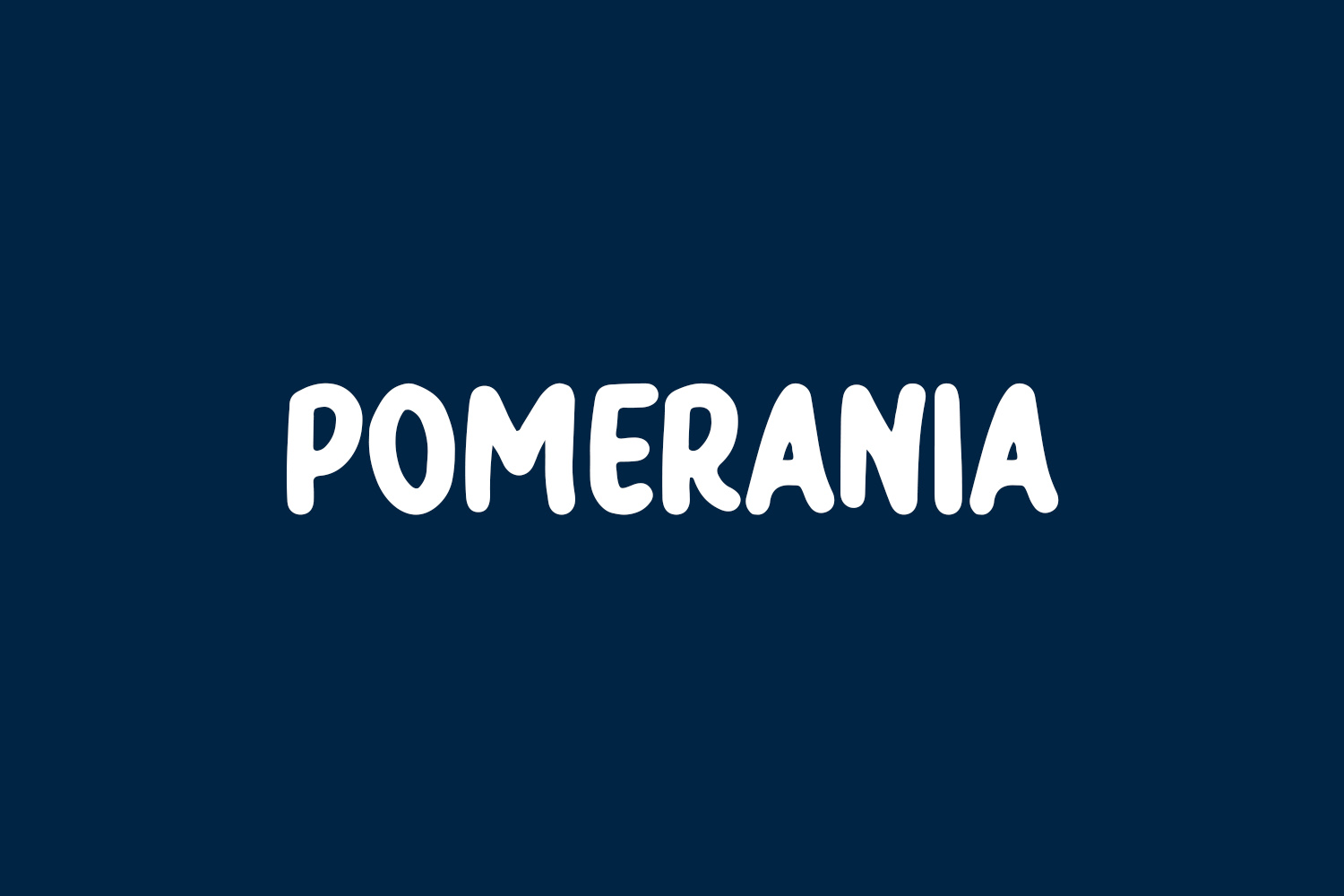
Pomerania Free Font is a playful and fun handwritten font that is perfect for adding a touch of personality to your designs. Its casual, carefree style makes it ideal for children’s books, invitations, and social media graphics. The font’s whimsical curves and lively loops give it a unique character, making it perfect for capturing the attention of your audience. Its handwritten style also brings a human touch to your designs, making them more relatable and approachable. Pomerania is a font that will bring a smile to anyone’s face and make your designs stand out.
Designed by Hanna Bie